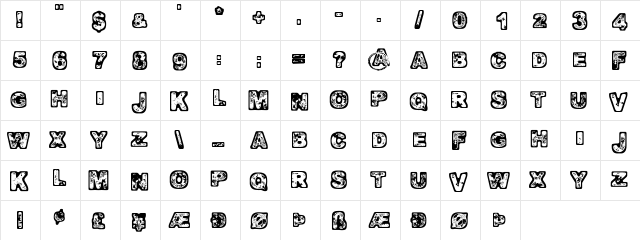
Oomph Regular
| Foundry | David Kerkhoff |
| Designer | David Kerkhoff |
Design Context for Oomph Typeface
Oomph is a composed and adaptable typeface that performs quietly and consistently across a wide range of design contexts.